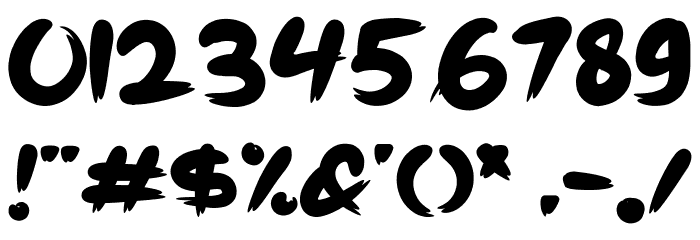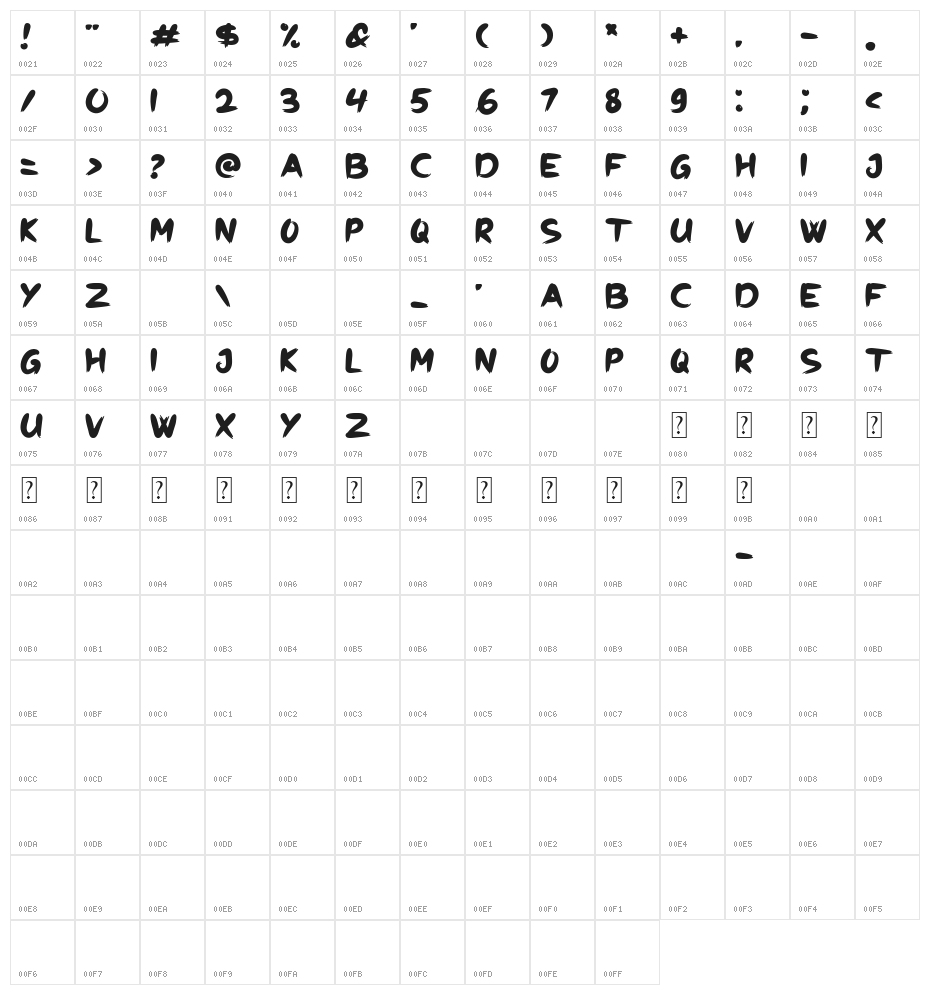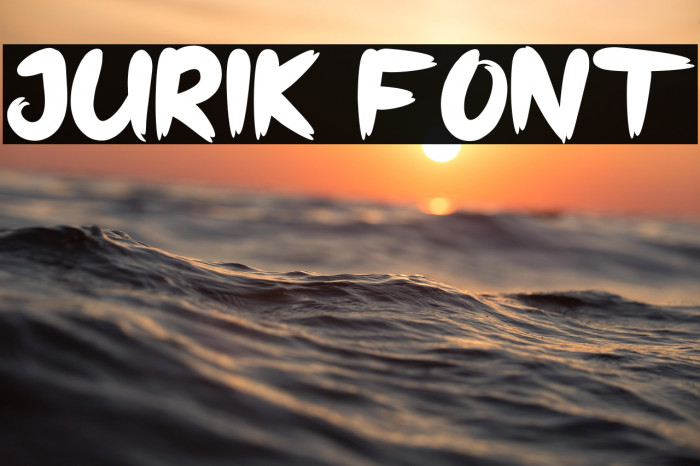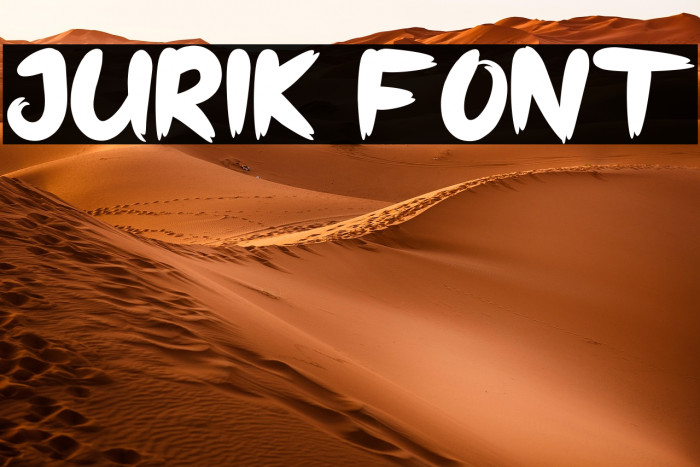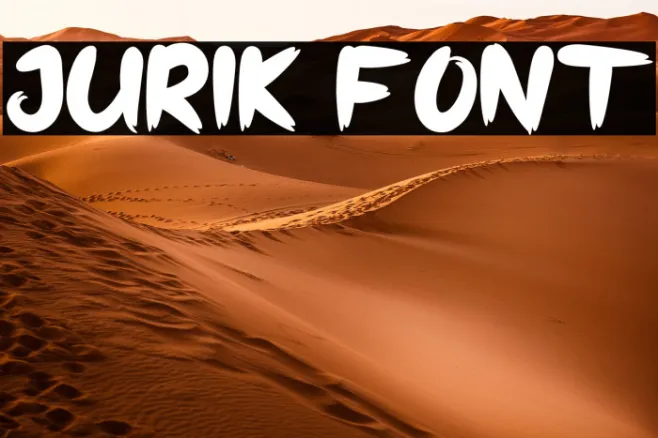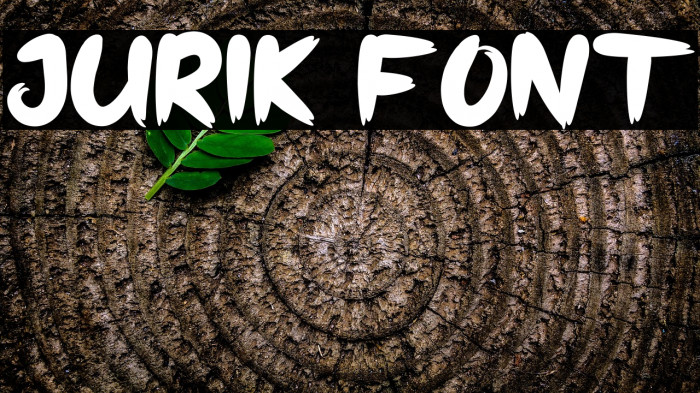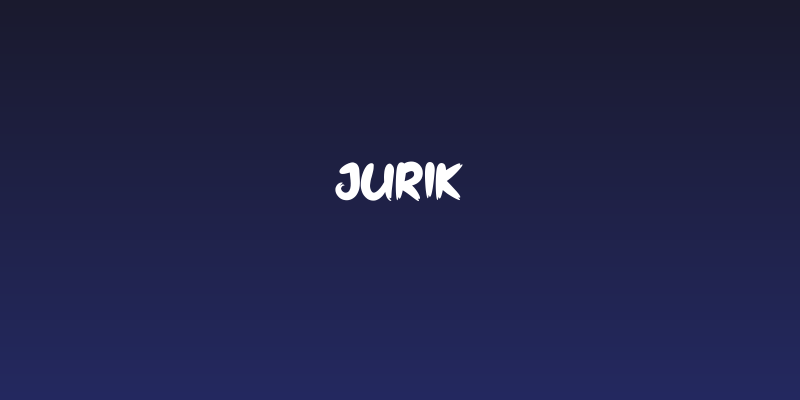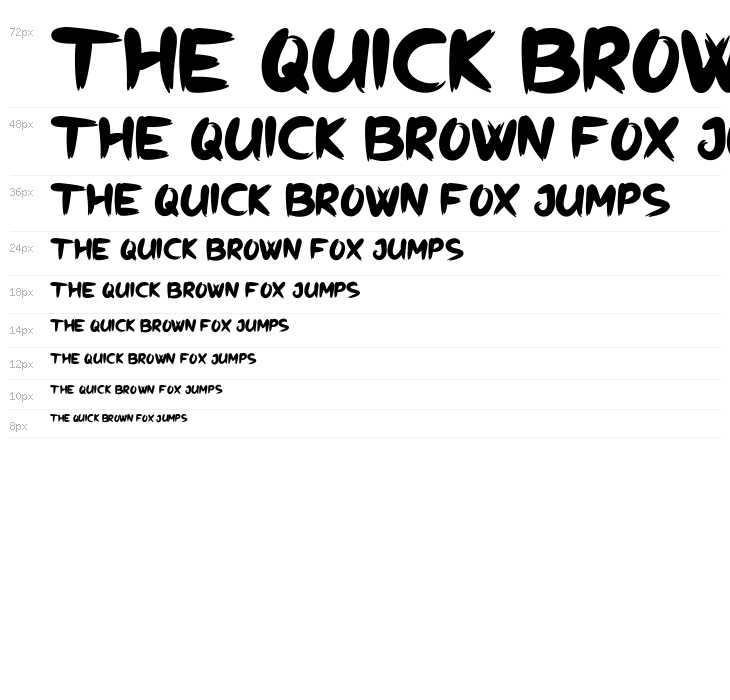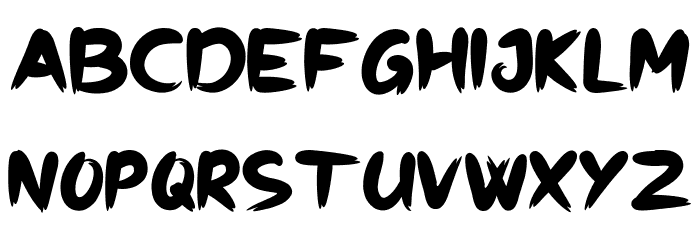
Jurik Font
Jurik Description
This font exhibits a bold and dynamic brush style, characterized by its thick strokes and energetic flair. The letters have a hand-painted appearance, with varying stroke widths that create a sense of movement and spontaneity. The uppercase and lowercase letters maintain a consistent style, with rounded edges and a slightly irregular baseline, enhancing the casual and artistic feel. The numerals and special characters follow the same design principles, ensuring uniformity across the typeface. This font's expressive nature makes it suitable for creative and eye-catching designs.
| Proposed Projects | Ideal for posters, branding, packaging, and any project requiring a bold, artistic touch. |